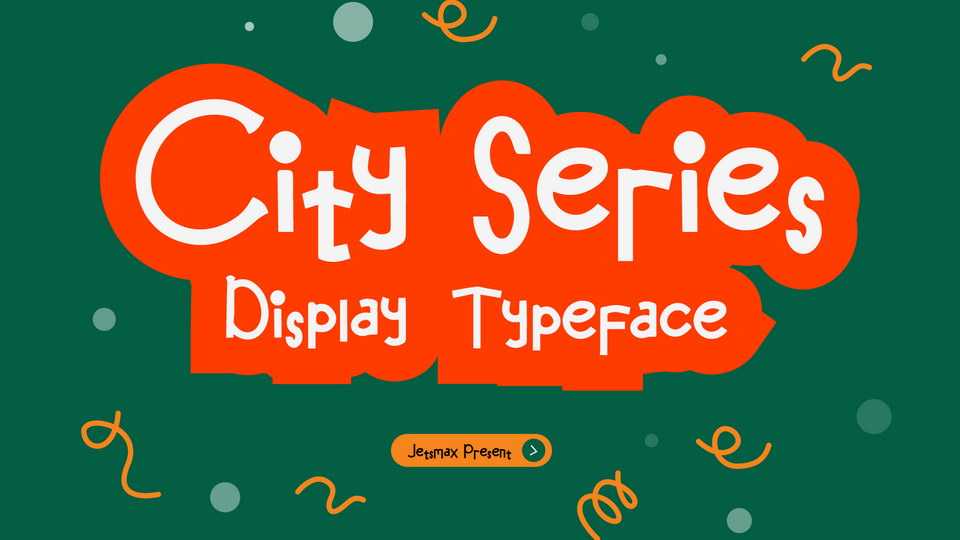
Download City Series font, a typeface inspired by a snowman’s, round but pointy on some particular edges. City Series will reflect the happy spirit of the holiday into your creative projects.
Designer: Jetsmax Studio